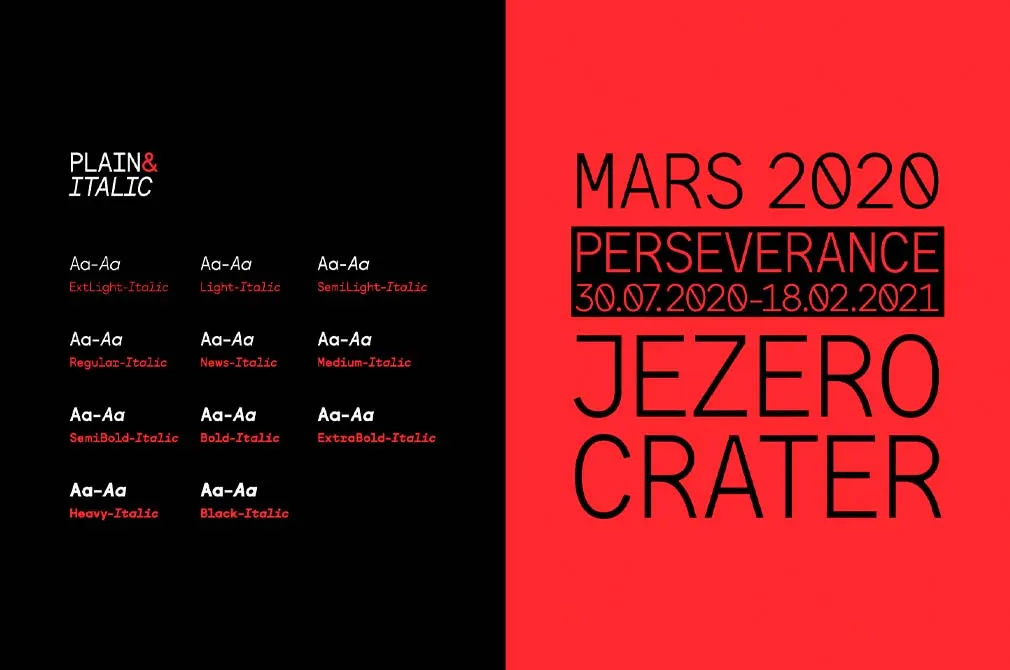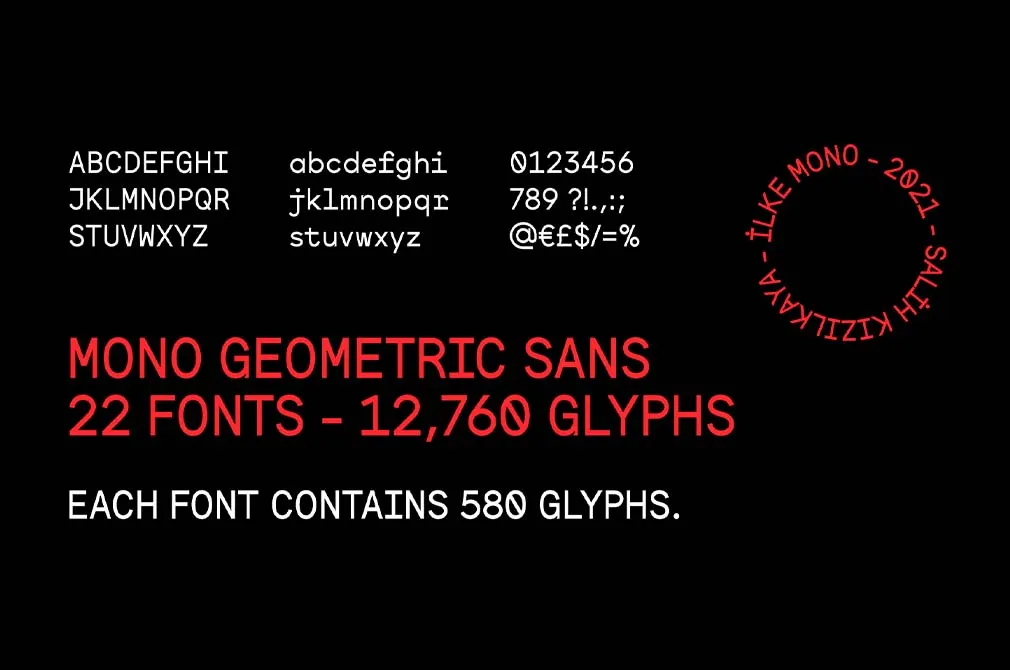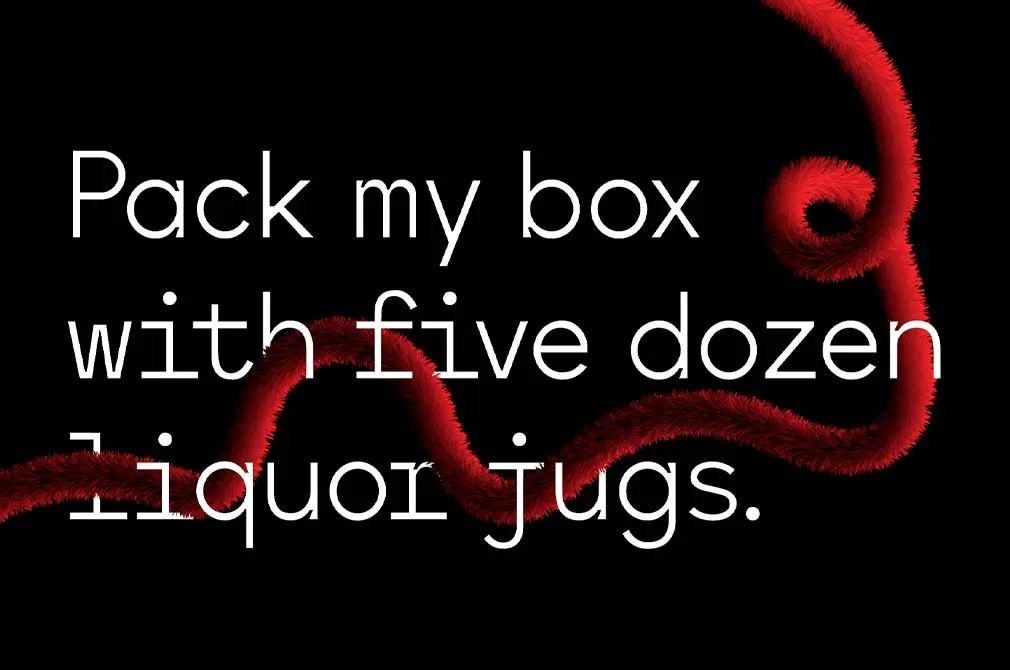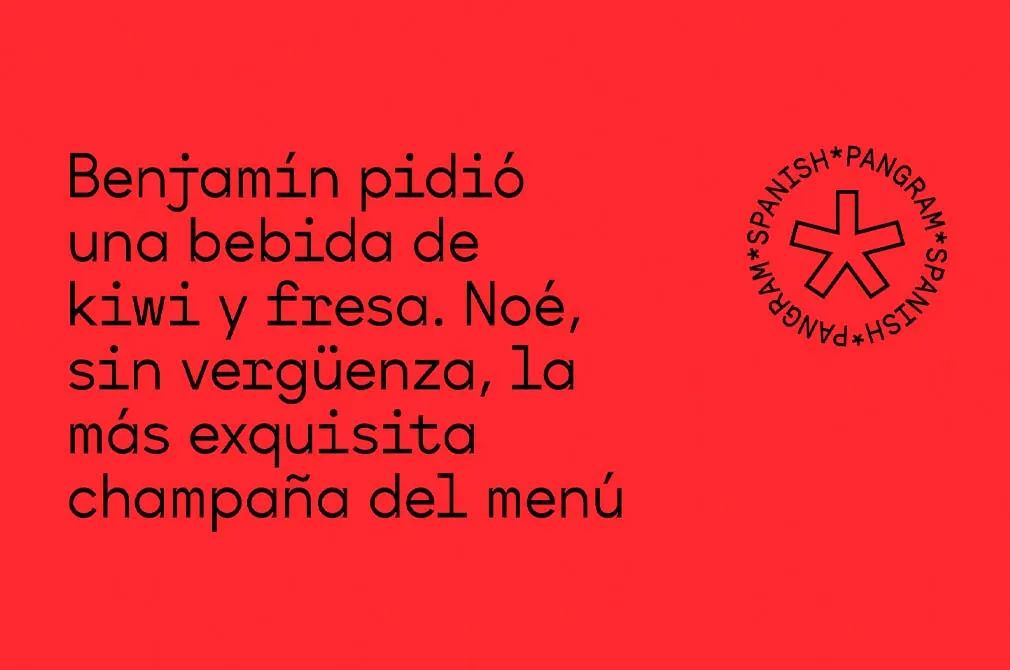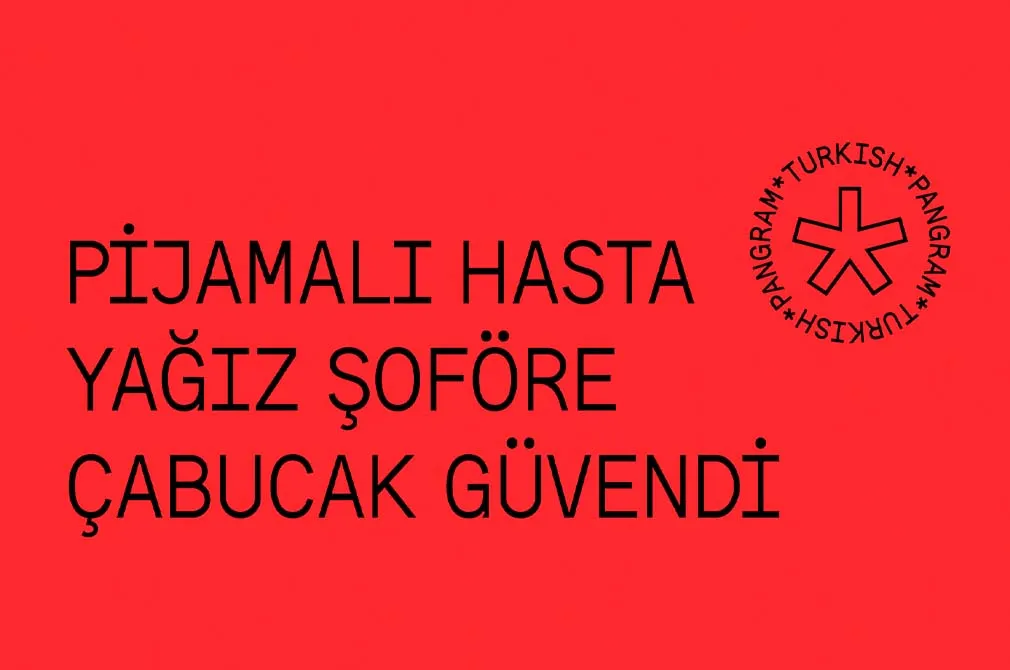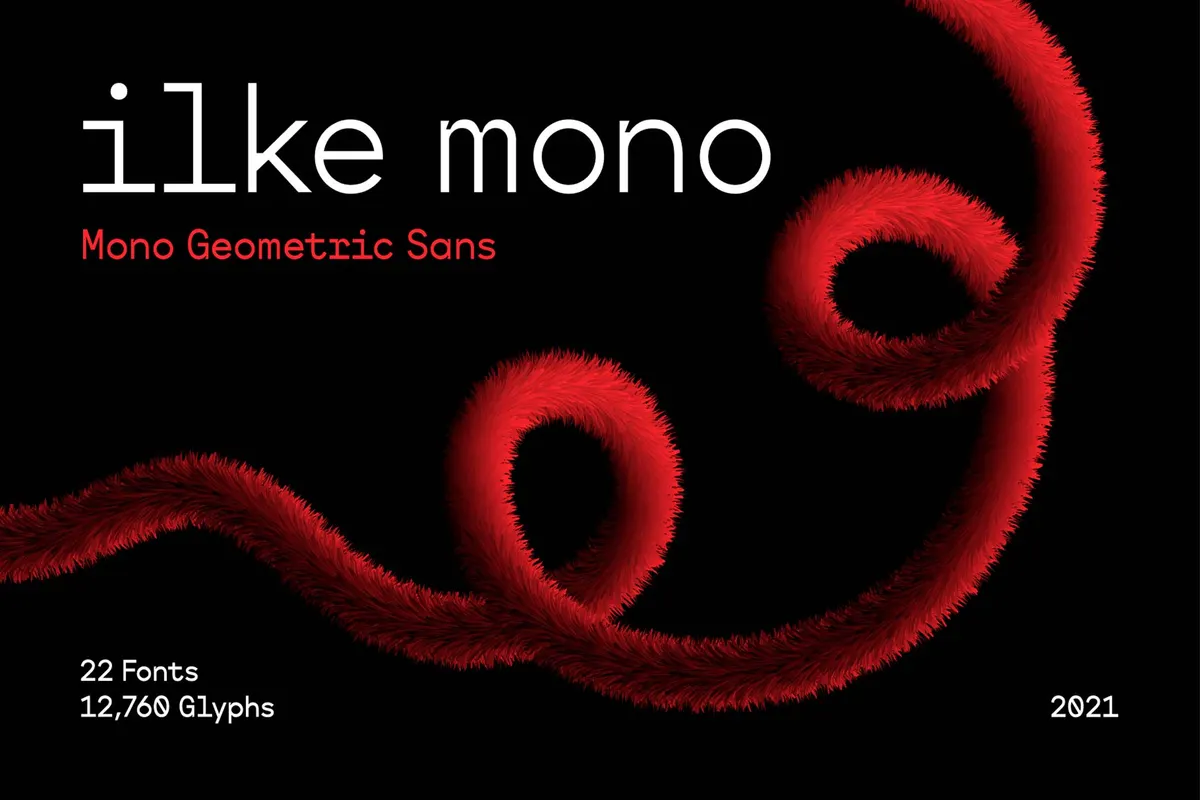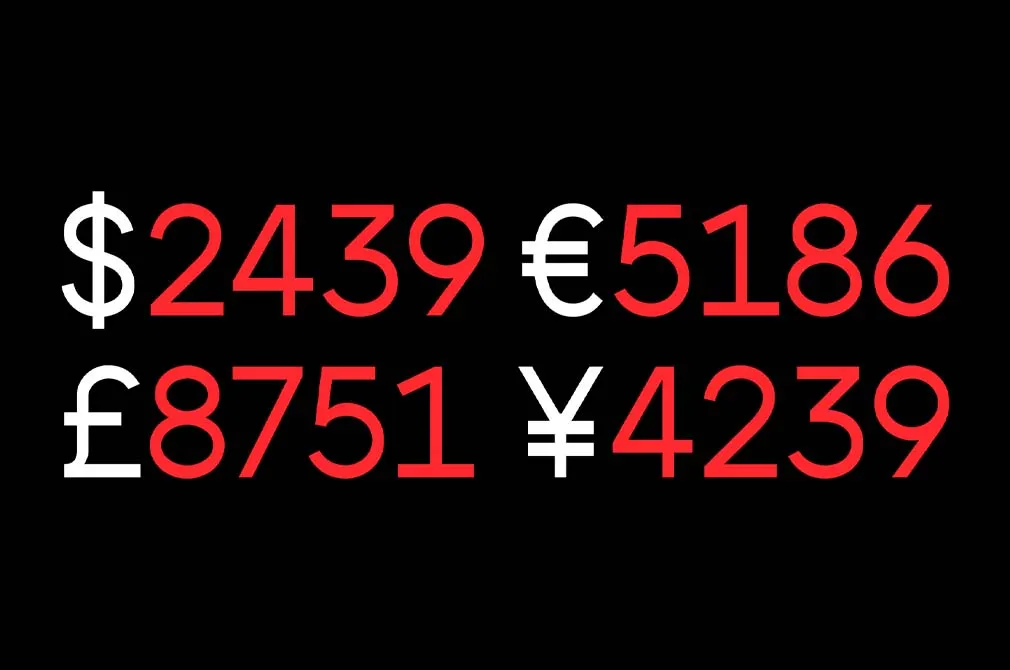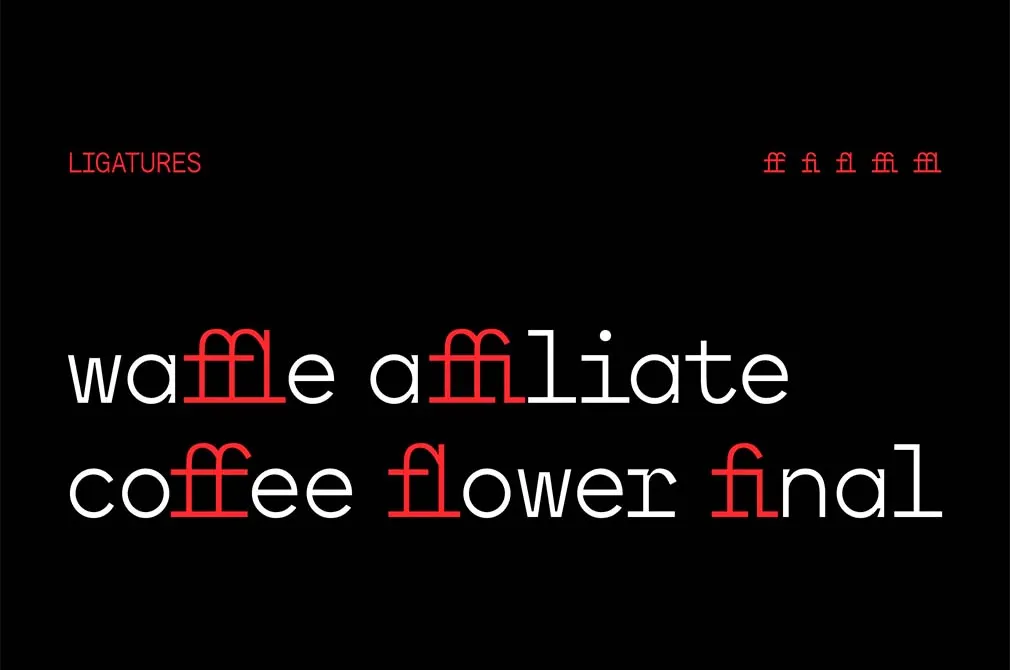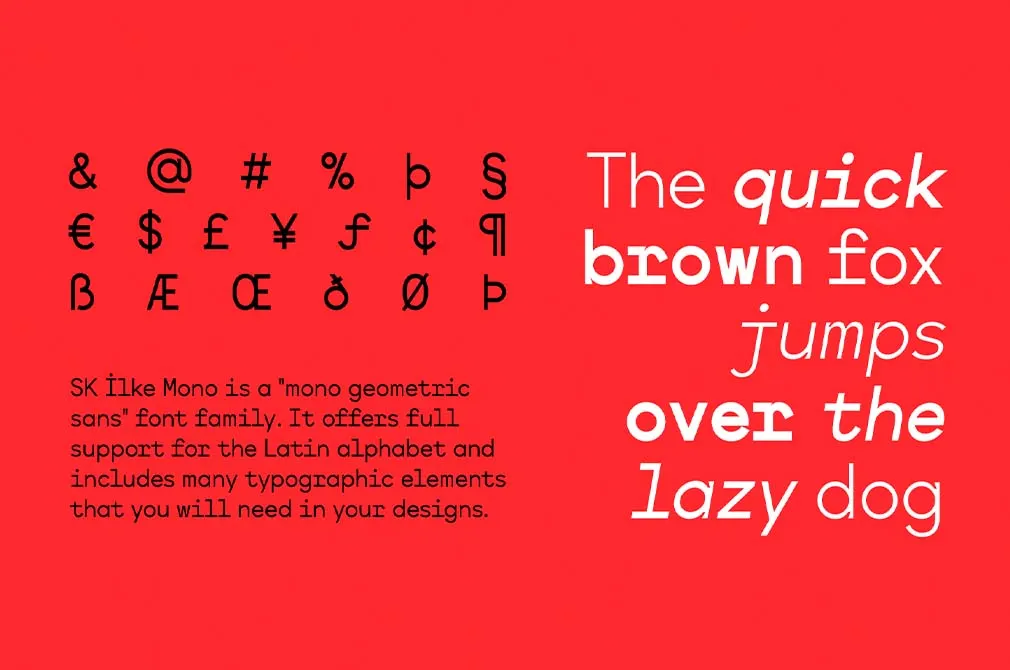
SK Ilke Mono — Geometric Sans
Meet SK Ilke Mono, a mono geometric sans font family designed to meet the needs of designers and software developers.
SK Ilke fully supports the Latin alphabet and includes many typographic elements. It contains 22 different fonts and 12,760 glyphs in total. Each font of this family contains 580 glyphs. Character ranges and characters have been specially designed so that you can use them comfortably in any area you need a mono font, from interfaces and web design to branding.